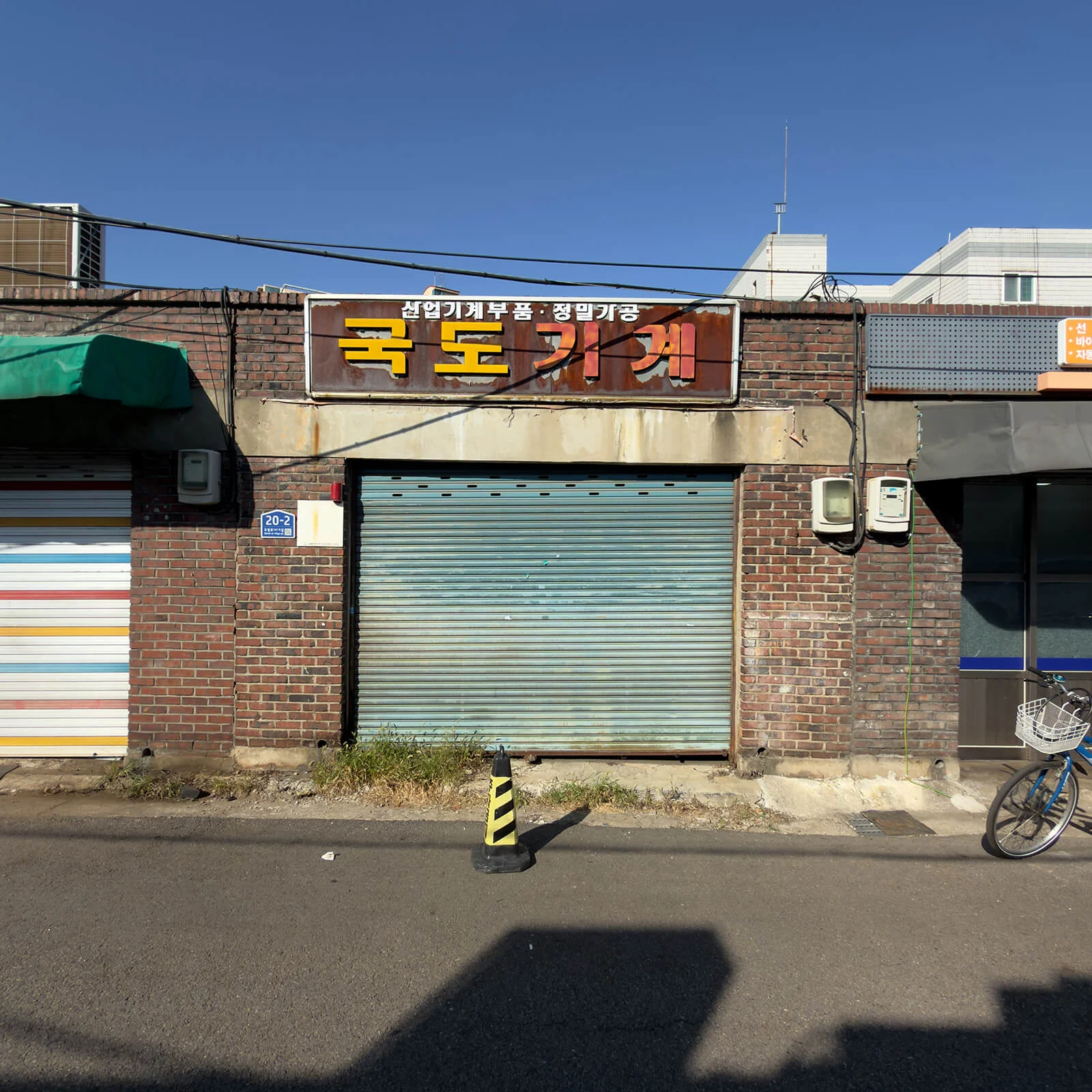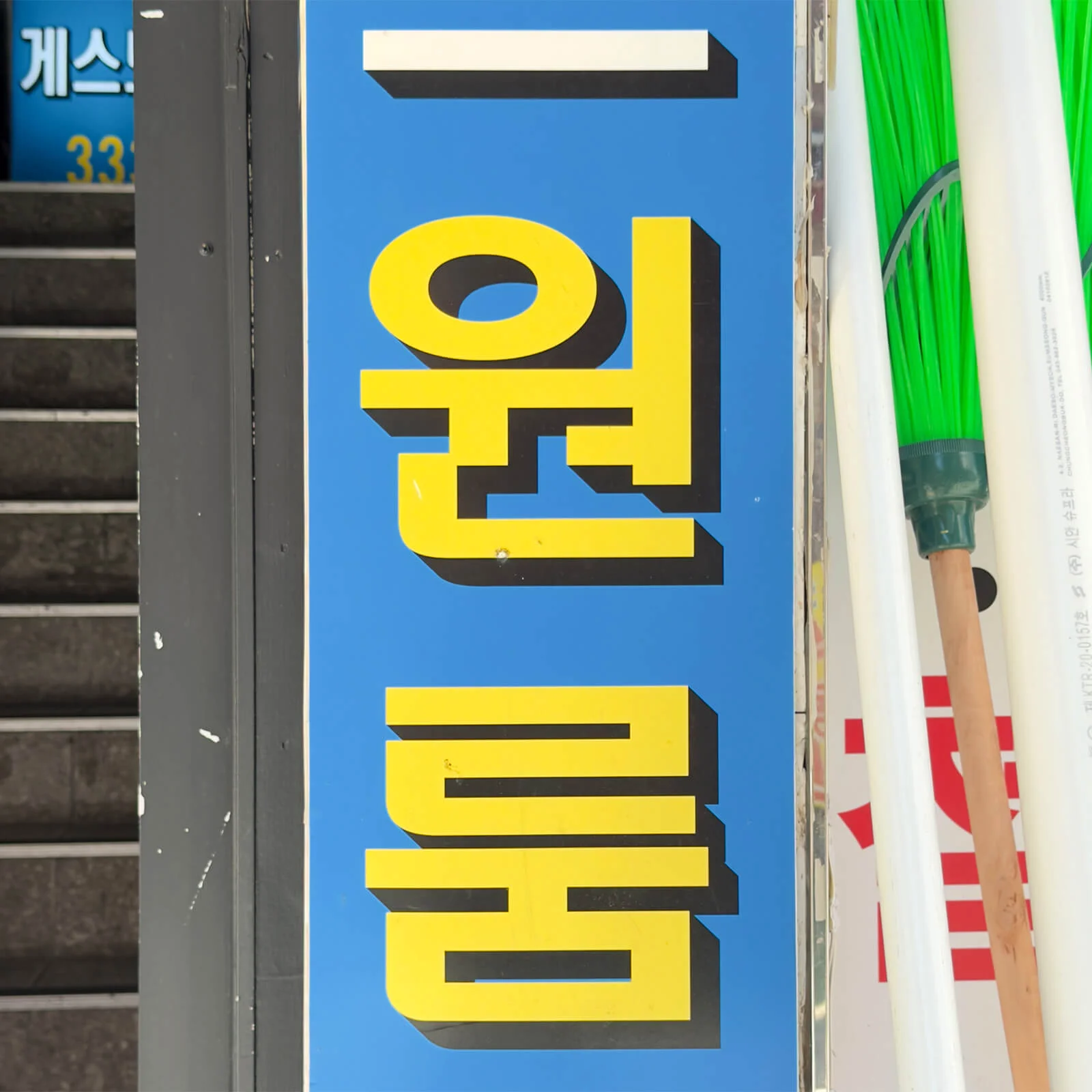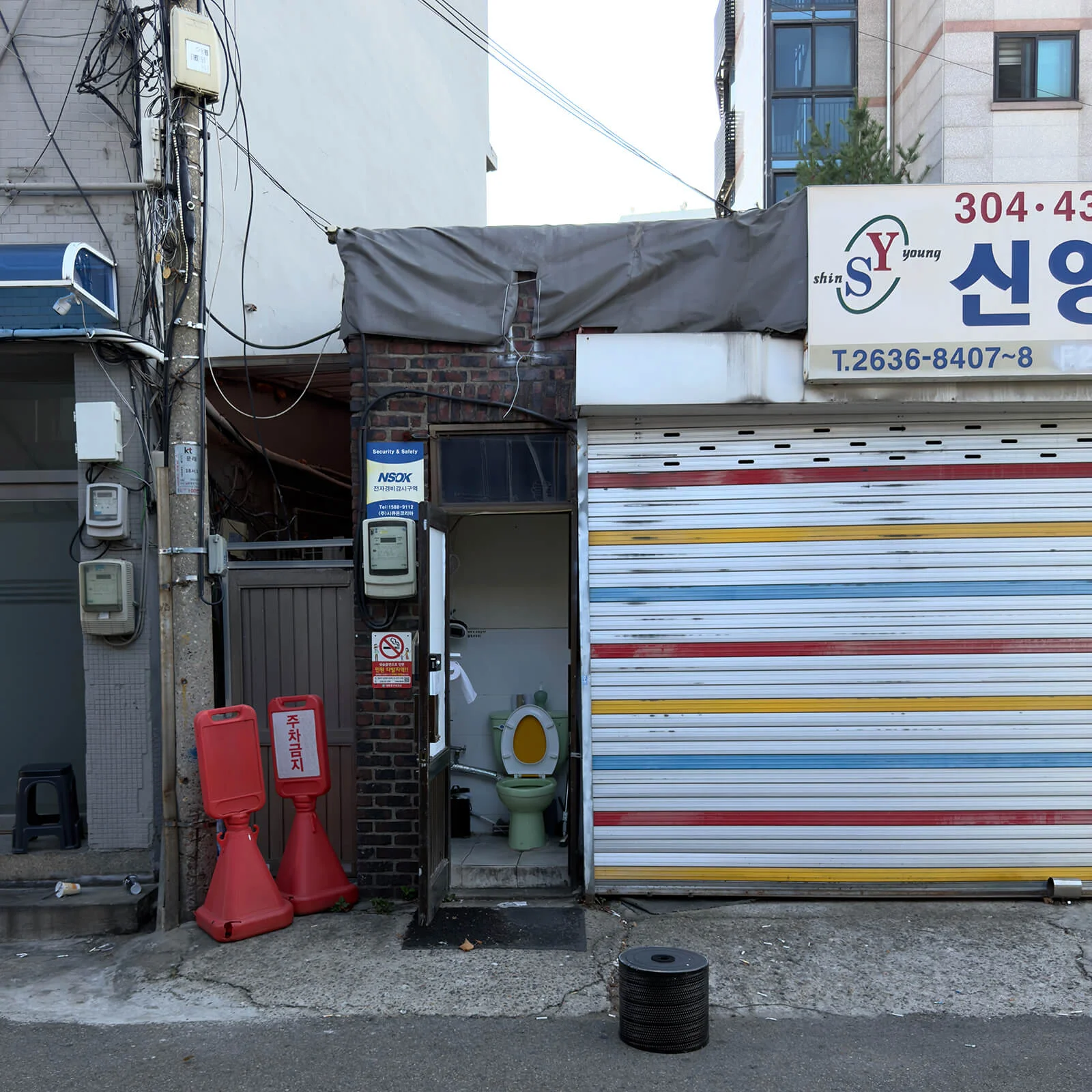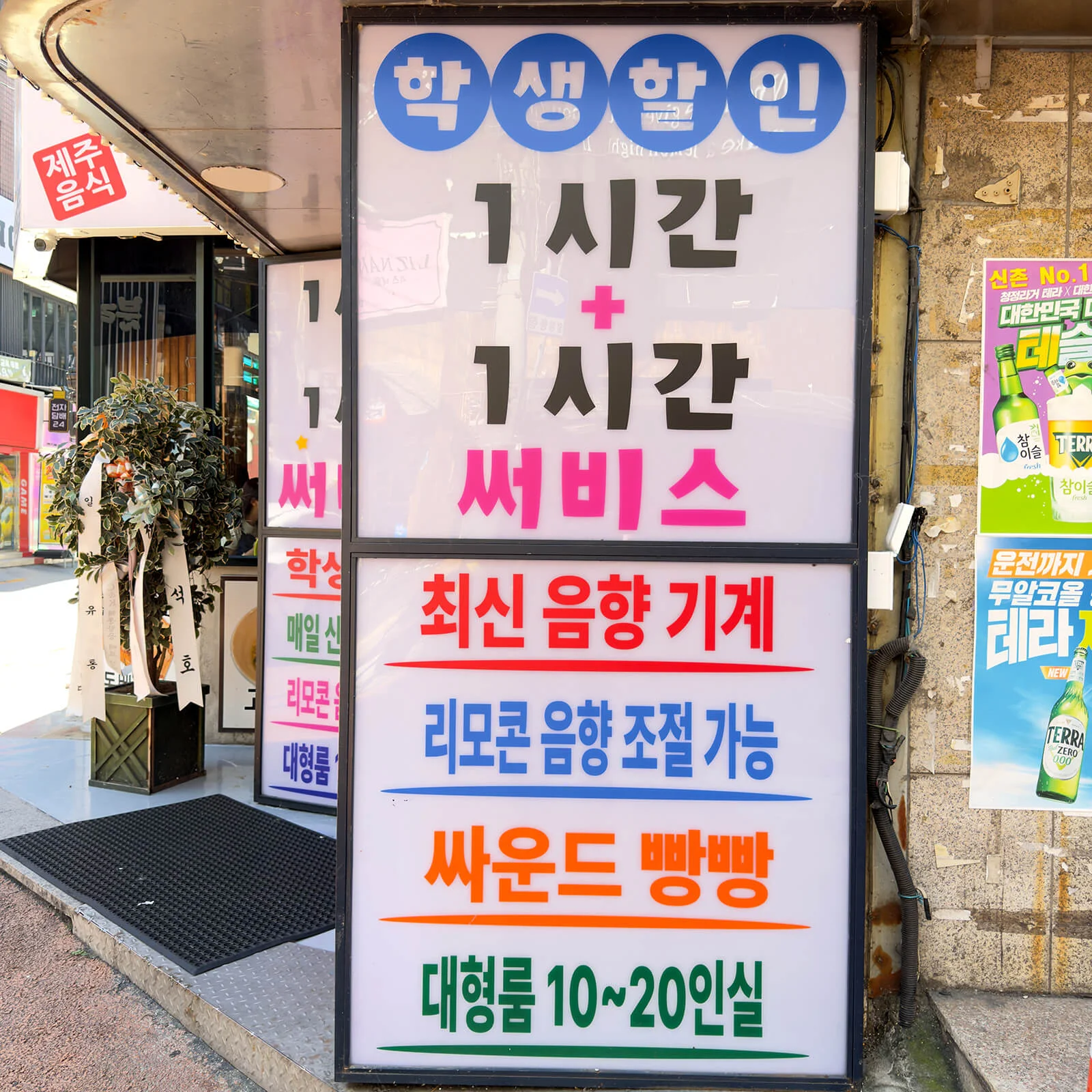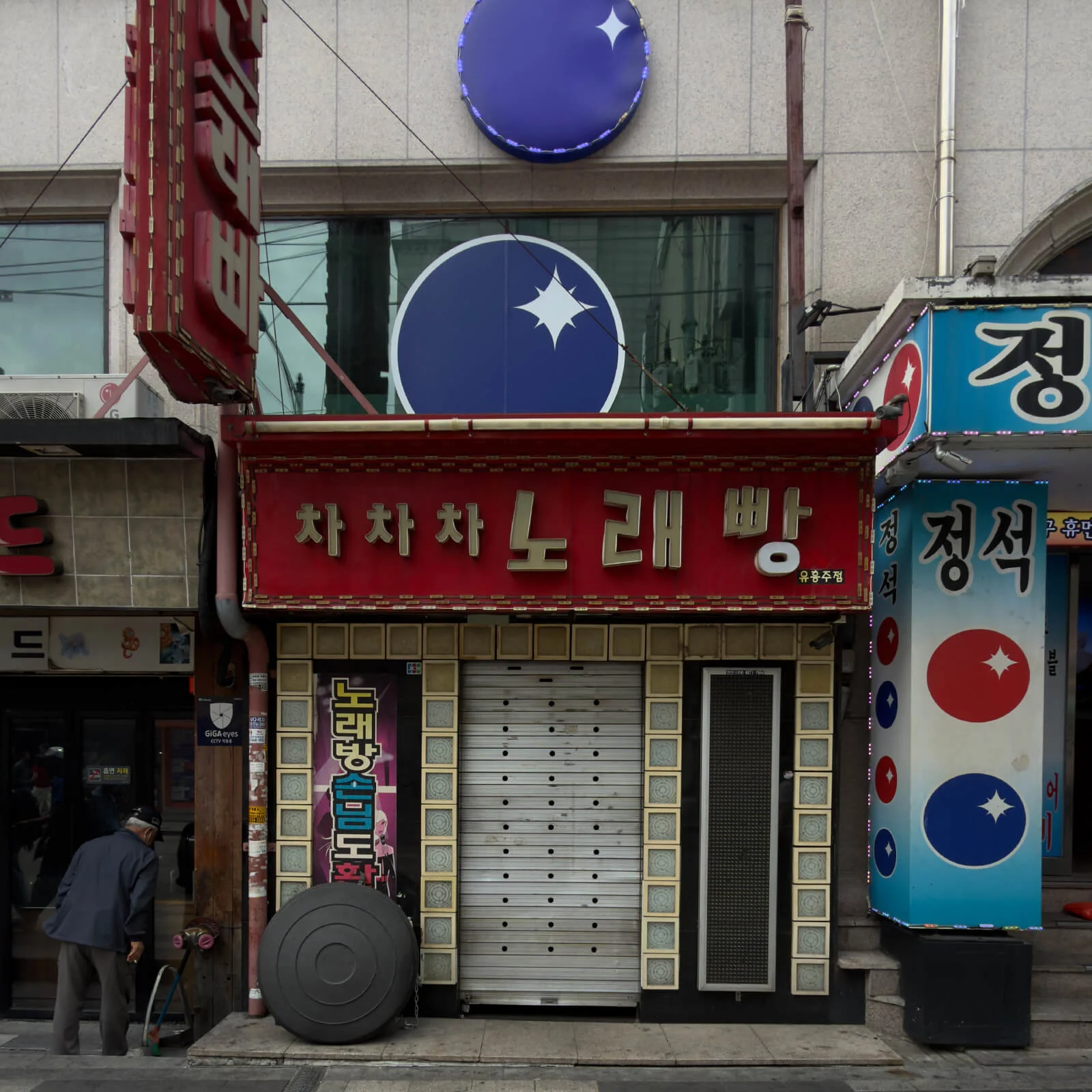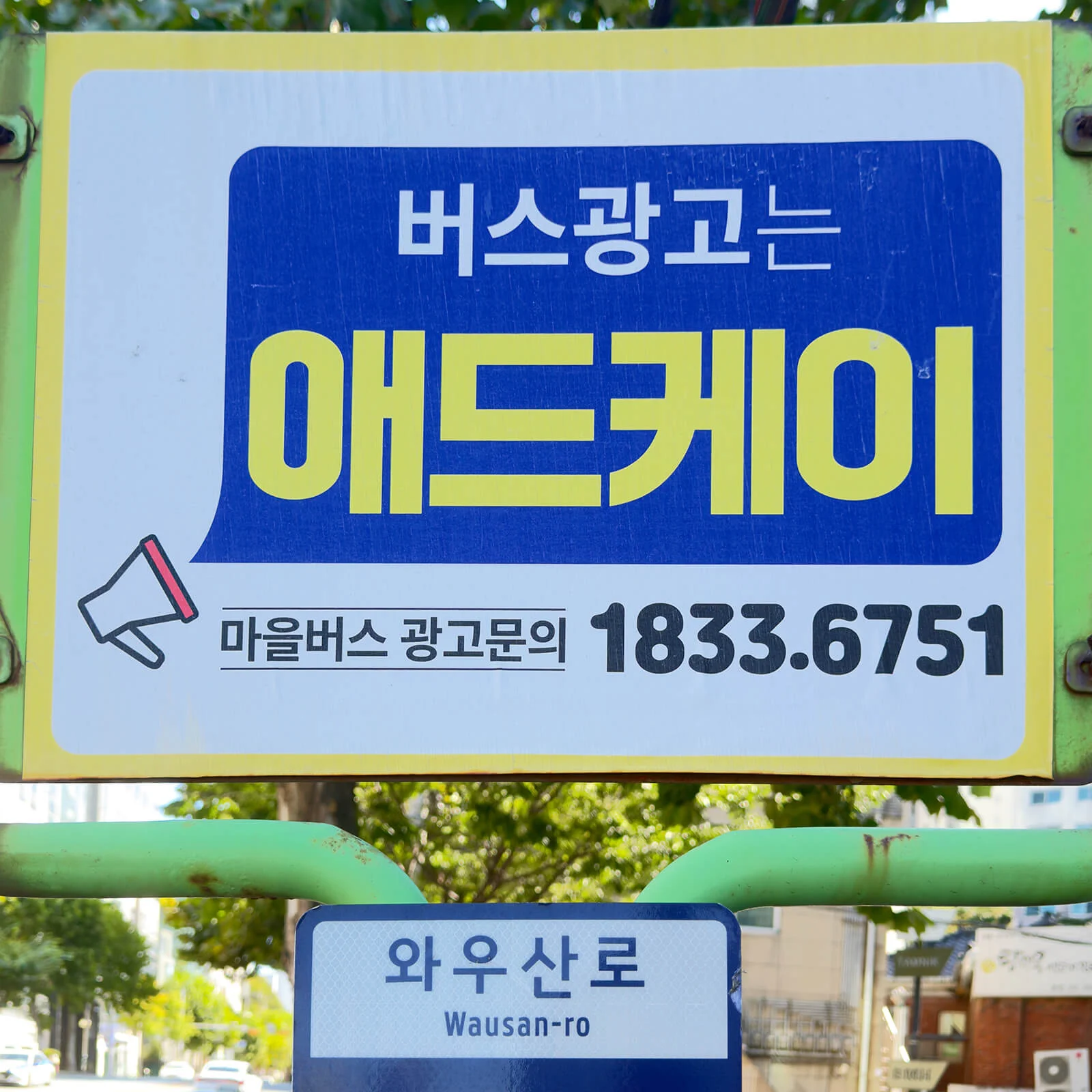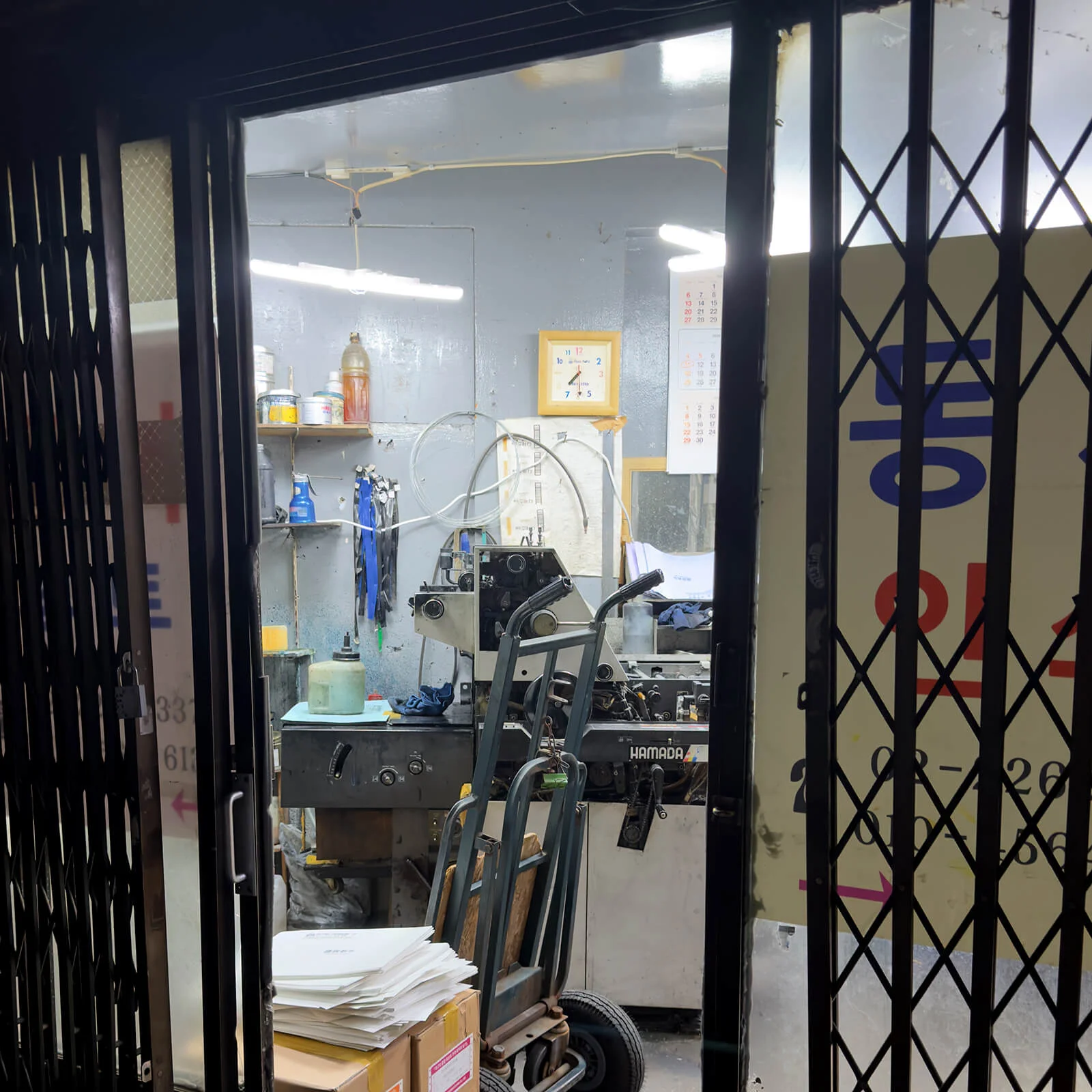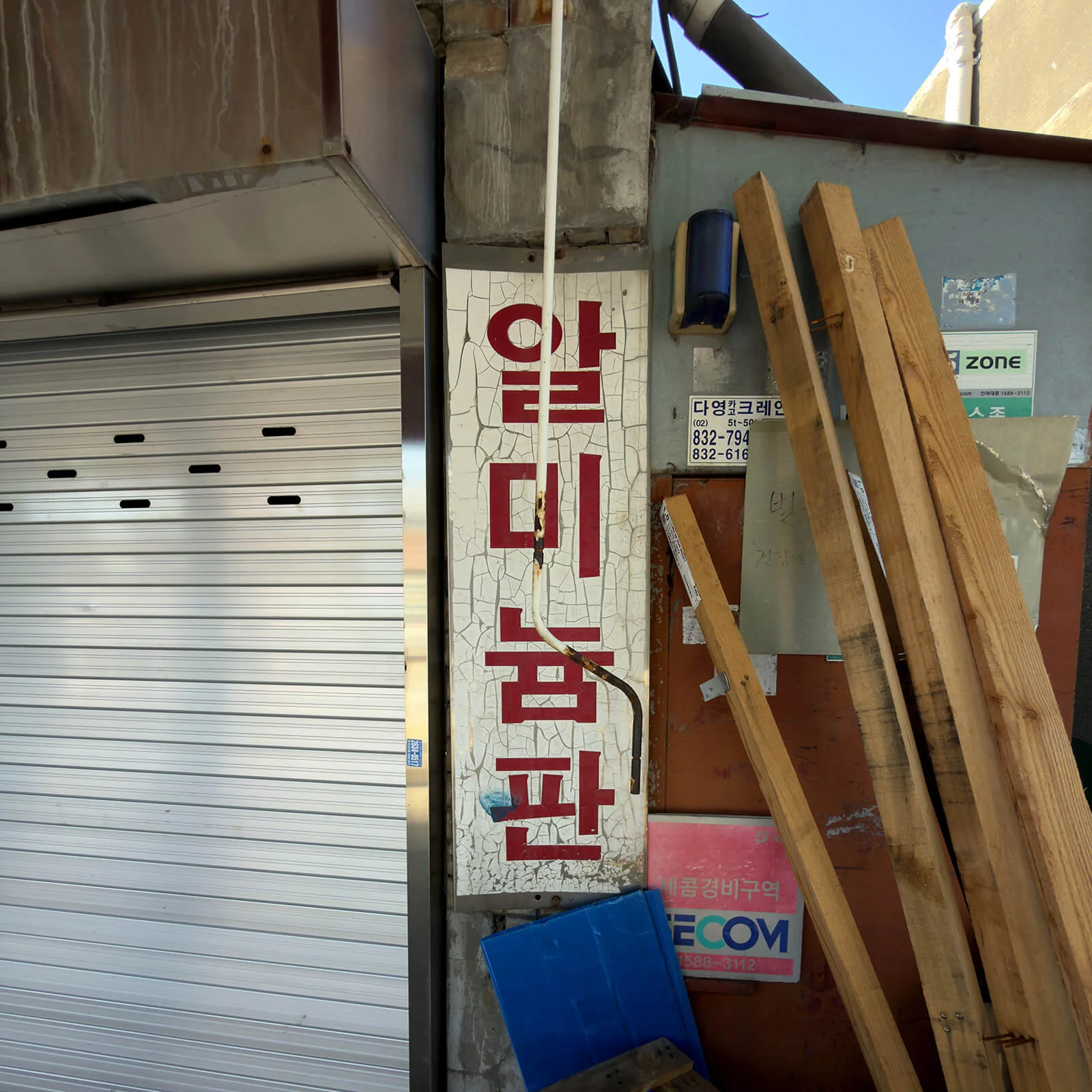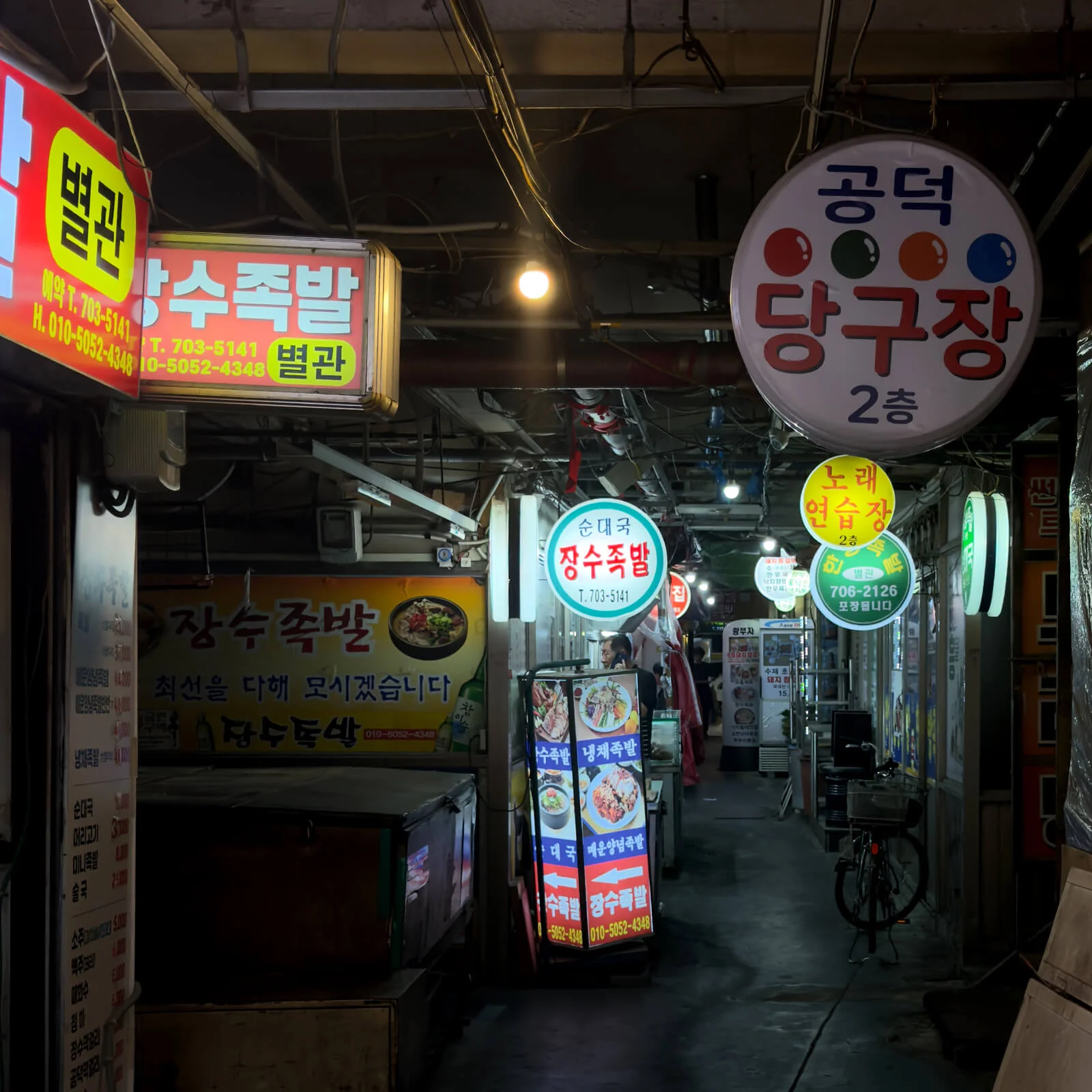
From the workshop signs of the increasingly gentrified Mullae-dong district and the backyard print shops around Euljiro Printing Alley to the student-oriented streets of Hongdae and slightly faded nightlife districts such as Sinchon, Seoul presents a remarkably broad spectrum of individual public lettering.
Hand-painted and manually produced signs have become increasingly rare, yet the diversity of letterforms remains striking. Within Hangeul — a writing system that can at first appear highly constructed and geometric — the urban environment reveals an extraordinary range of typographic expression, from functional workshop signage to bold and highly expressive commercial lettering.
The series The Good, the Bad and the Ugly brings together typographic finds from a range of cities. The photographs present them as they were encountered: unembellished, unedited and without aesthetic or qualitative judgement. Rather than distinguishing between ‘good’ and ‘bad’ or ‘ugly’ design, the focus is on typography as a direct expression of everyday urban culture.